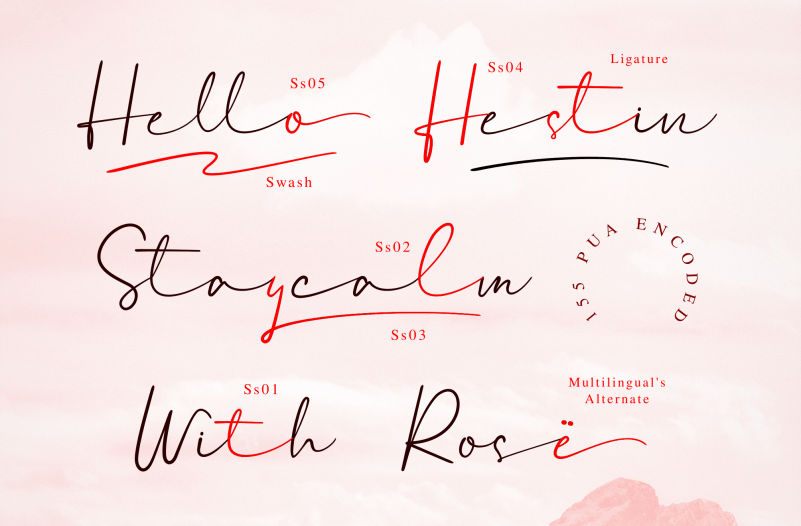
Hello, let me introduce my new signature font Coolesta. Made with great effort to produce an elegant and modern style. Coolesta Signature Font is made like handwriting so it is suitable for branding, logos, business cards, wedding invitations, quotes, and others.